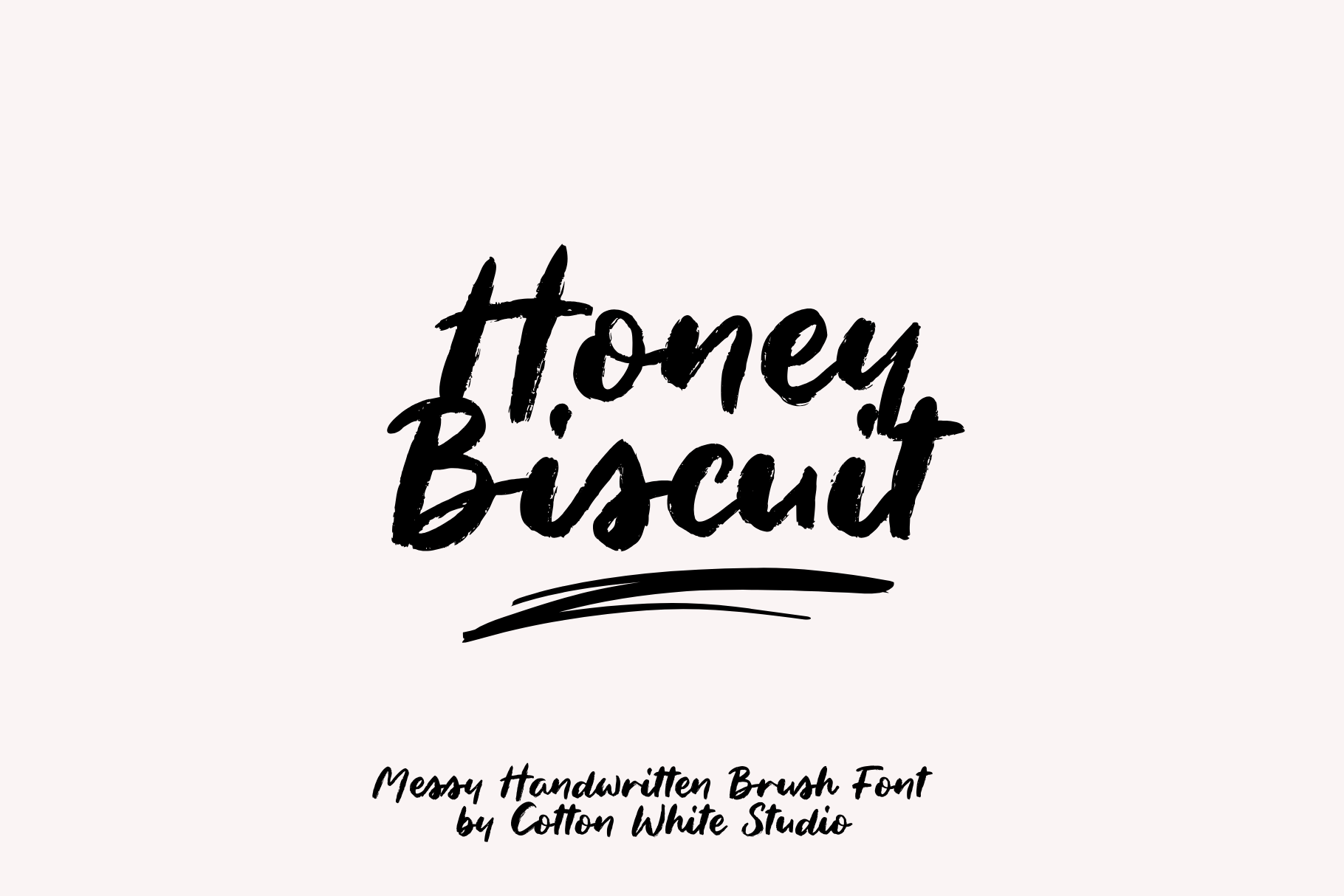
Honey Biscuits | Handwritten Font
Greetings, everyone! I'm excited to present Honey Biscuits, a contemporary and elegant handwritten brush font. Versatile and perfect for a range of projects, including branding, labels, photography, invitations, stationery, wedding designs, social media posts, advertising, product packaging, product design, and much more.